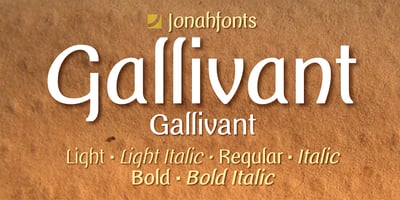
Gallivant Font Family was designed by John Nahmias and published by Jonahfonts. Gallivant contains 6 styles and family package options. Slightly condensed with a taller lowercase, Gallivant carries itself very well. Similar to classic thick-and-thin san-serif faces with stems slightly facing inward. Note: OpenType variants may only be accessible via OpenType-aware applications.